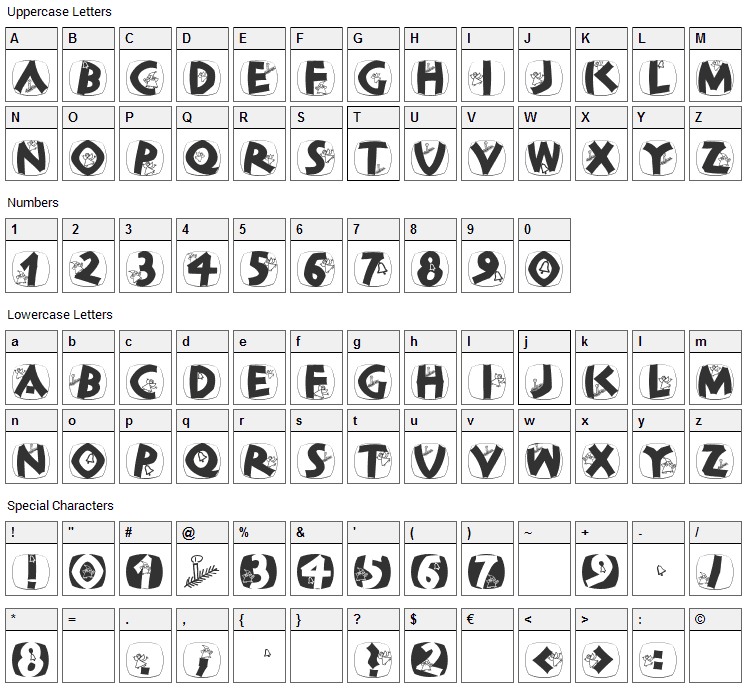
ClassiCaps Xmas Font
Use this font for printing on gift paper or greeting cards and for designing CD covers. Use single characters or create christmas logos. And because this font is for free, donate some dollars or Euro to orphans in New York or Afghanistan.